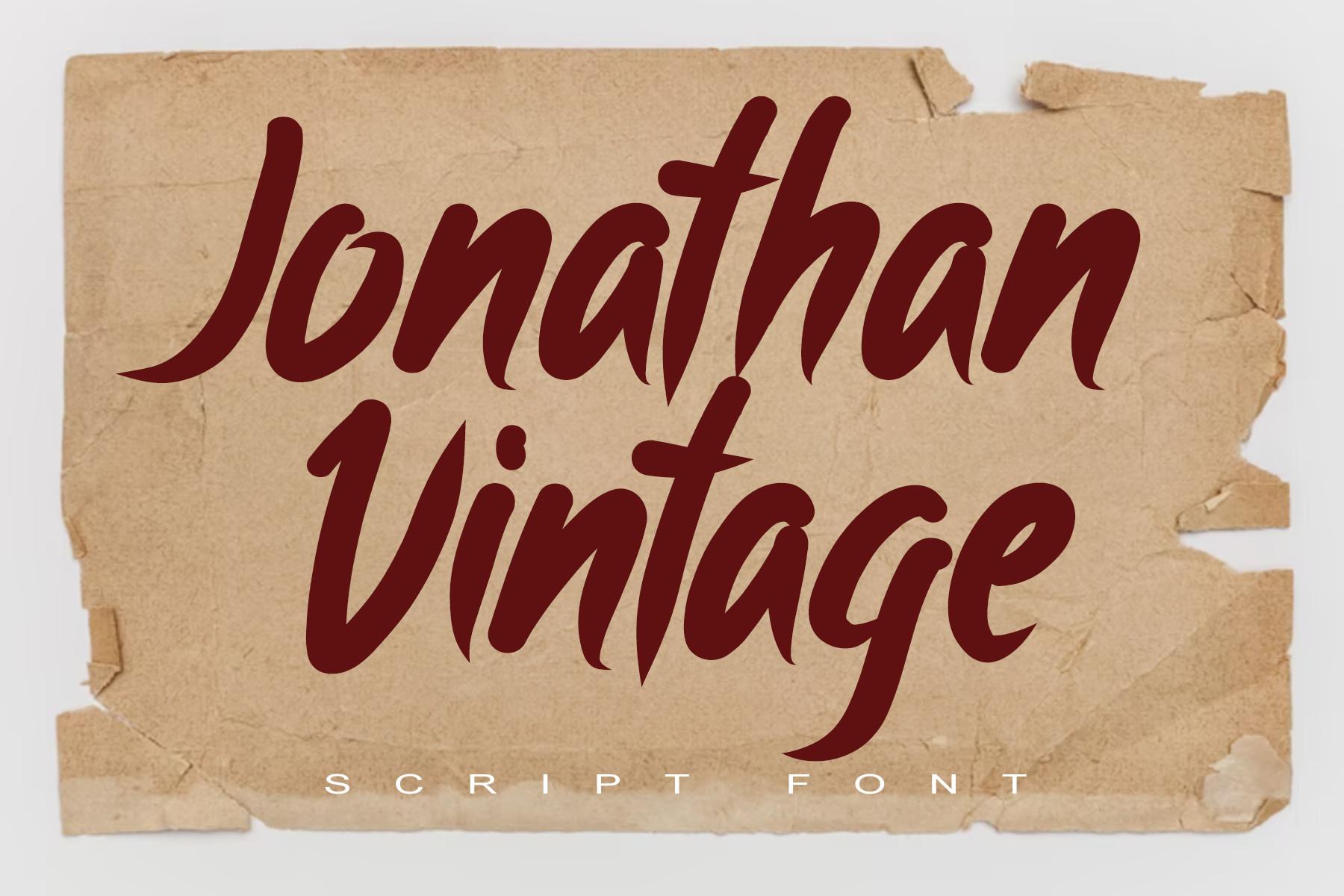
Jonathan Vintage Font Description
Jonathan Vintage is a beautiful, well balanced and stylish script font. It is defined by smooth curves and is perfect for fashion branding or editorial designs. Add it confidently to your projects, and you will love the results.